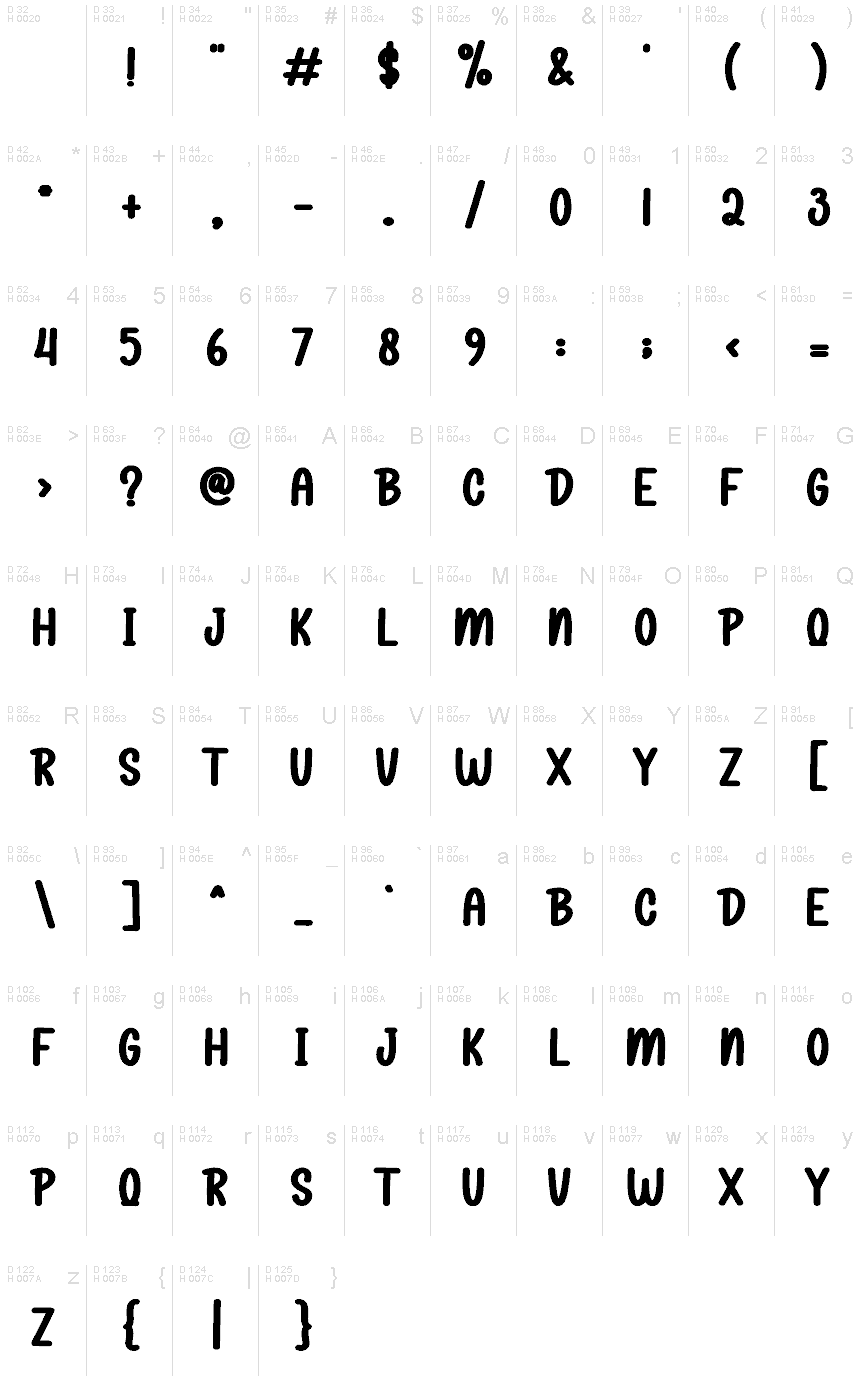
School Holidays
School Holidays font is a free handwritten font created by Scratchones with retro and casual traits. Friendly and approachable, the typeface has a cool vintage-inspired design that lends it an odd charm. Along with its dainty characters, each letter is presented with exceptional details using thick strokes.
Enjoying versatile usage, School Holidays can be implemented in invitations cards, headers and titles for magazines and books, albums/covers artworks, mugs or T-shirt prints, postcards, branding projects including logos and slogans designs among other business stationary items.